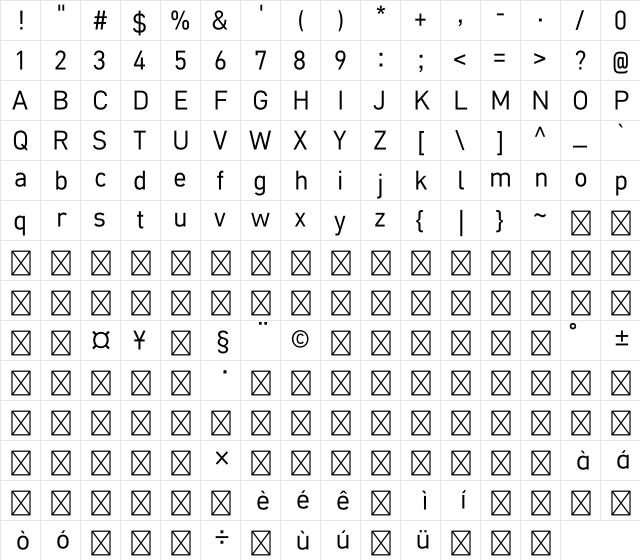
Complete MP ARUDJingxiheiGb4 DB glyph index. Displaying only characters natively supported by MP ARUDJingxiheiGb4 DB font.
MP ARUDJingxiheiGb4 is a composed and adaptable typeface that performs quietly and consistently across a wide range of design contexts.
Who designed the MP ARUDJingxiheiGb4 DB font?